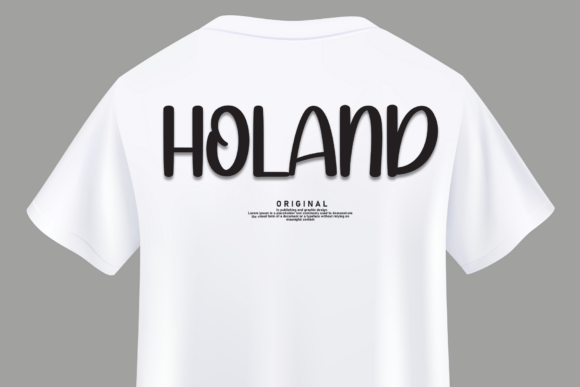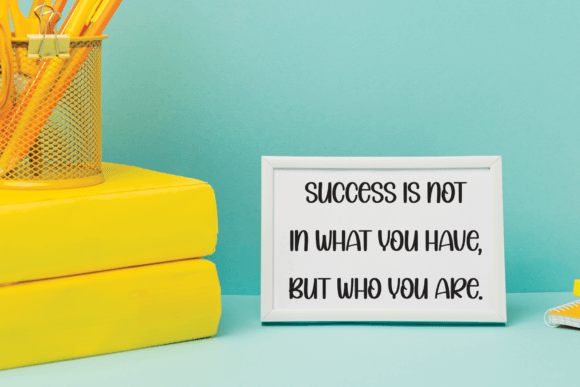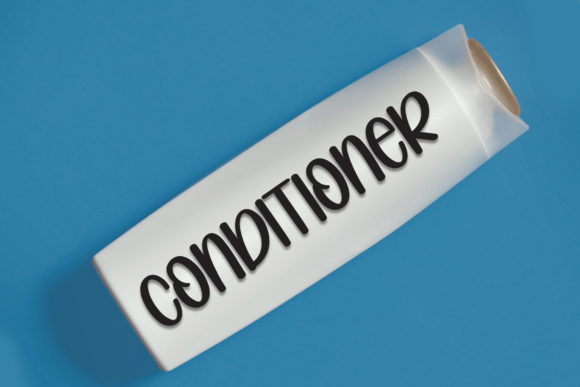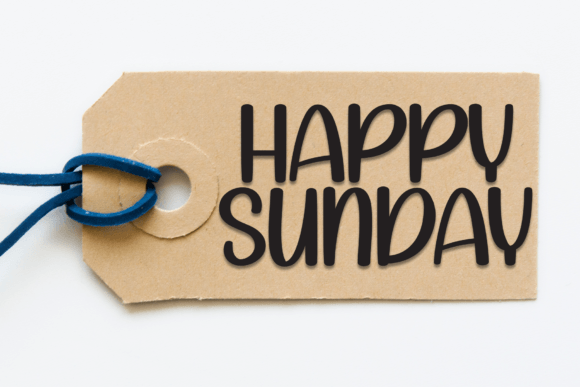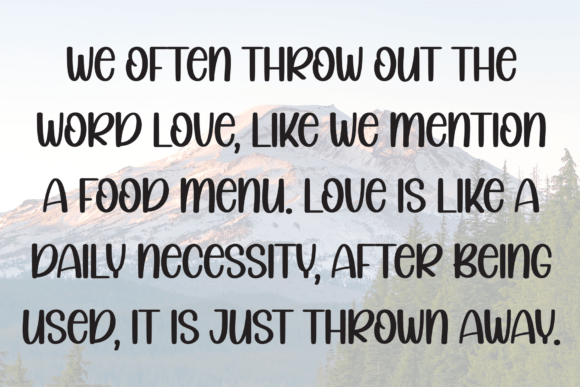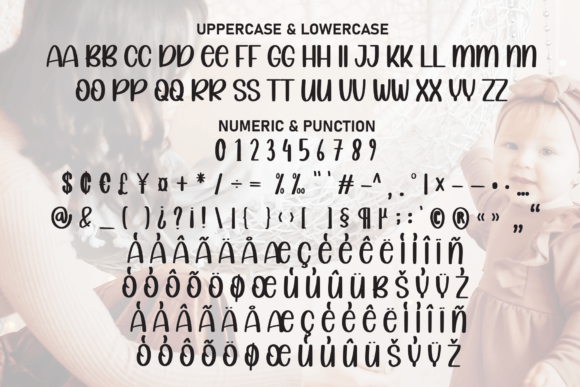
Introducing Boho Baby Font: The Ultimate Choice for Whimsical Designs
Are you a designer, crafter, or DIY enthusiast looking for a font that embodies the essence of modern simplicity and bohemian charm? Look no further than Boho Baby Font, a playful and versatile typeface that is perfect for a wide range of creative projects. With its rounded, hand-drawn letterforms, Boho Baby adds a cozy and joyful touch to every design, making it an ideal choice for baby shower invitations, nursery decor, branding, and whimsical designs.
The Charm of Boho Baby Font
Boho Baby Font is a unique and eye-catching typeface that is characterized by its rounded, hand-drawn letterforms. The font’s playful and whimsical design makes it perfect for projects that require a touch of personality and charm. Whether you’re creating a baby shower invitation, a nursery wall art, or a brand identity, Boho Baby Font is sure to add a soft, bohemian vibe to your creations.
Perfect for Baby Shower Invitations and Nursery Decor
Boho Baby Font is an ideal choice for baby shower invitations and nursery decor. The font’s playful and whimsical design makes it perfect for creating adorable and eye-catching invitations that set the tone for a joyful celebration. Additionally, Boho Baby Font can be used to create beautiful nursery wall art, garlands, and other decorative elements that add a touch of personality to a baby’s nursery.
Versatile and Easy to Use
One of the best things about Boho Baby Font is its versatility. The font can be used for a wide range of projects, from digital designs to print materials. Whether you’re a designer, crafter, or DIY enthusiast, Boho Baby Font is easy to use and can be incorporated into your projects with ease. The font is also highly legible, making it perfect for use in body text, headings, and titles.
Key Features of Boho Baby Font
- Rounded, hand-drawn letterforms for a playful and whimsical look
- Perfect for baby shower invitations, nursery decor, branding, and whimsical designs
- Versatile and easy to use for a wide range of projects
- Highly legible for use in body text, headings, and titles
- Adds a soft, bohemian vibe to every project
- Unique and eye-catching design that adds a touch of personality to every project
- Highly versatile and easy to use for a wide range of projects
- Perfect for designers, crafters, and DIY enthusiasts who want to add a soft, bohemian vibe to their creations
In conclusion, Boho Baby Font is a playful and versatile typeface that is perfect for designers, crafters, and DIY enthusiasts who want to add a touch of modern simplicity and bohemian charm to their creations. With its rounded, hand-drawn letterforms and highly legible design, Boho Baby Font is ideal for a wide range of projects, from baby shower invitations and nursery decor to branding and whimsical designs. So why wait? Embrace the charm of Boho Baby Font and bring a soft, bohemian vibe to your creations!